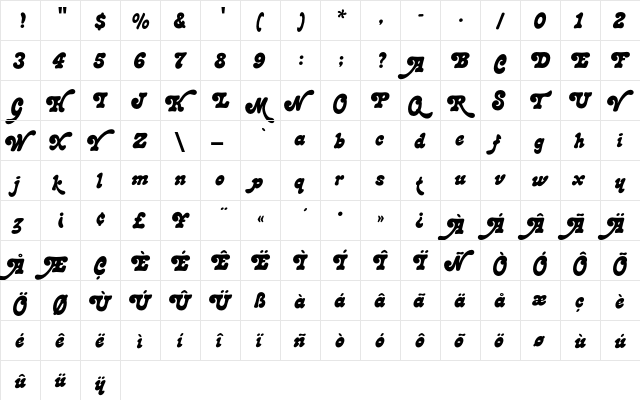
LazybonesEF Regular
Design Context for LazybonesEF Typeface
LazybonesEF is a composed and adaptable typeface that performs quietly and consistently across a wide range of design contexts.